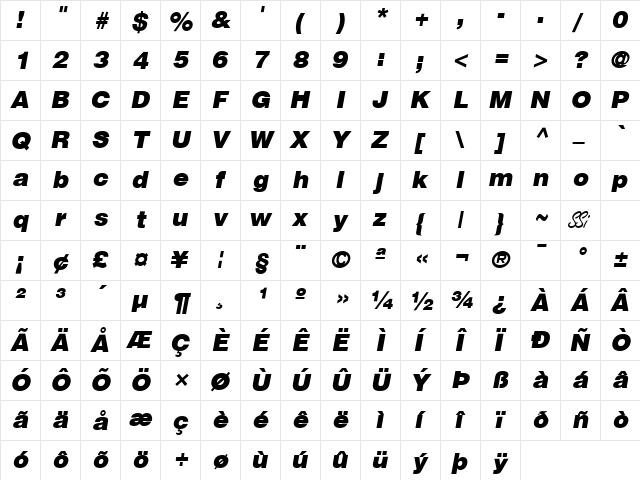
Context Black SSi Black Italic Font Preview
Context Black SSi Black Italic
Design Context for Context Black SSi Typeface
Context Black SSi takes a measured approach to typography — its balanced proportions and neutral character make it a reliable workhorse for both digital and print work. Its italic angle brings a sense of urgency and motion to the letterforms.
Pro Tip: Try Context Black SSi for annotation and caption copy alongside an upright companion — the contrast in angle creates a dynamic but ordered typographic system.